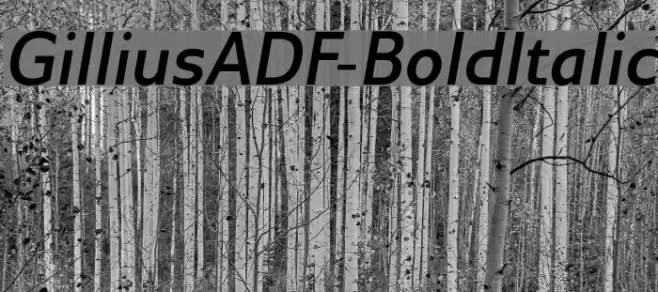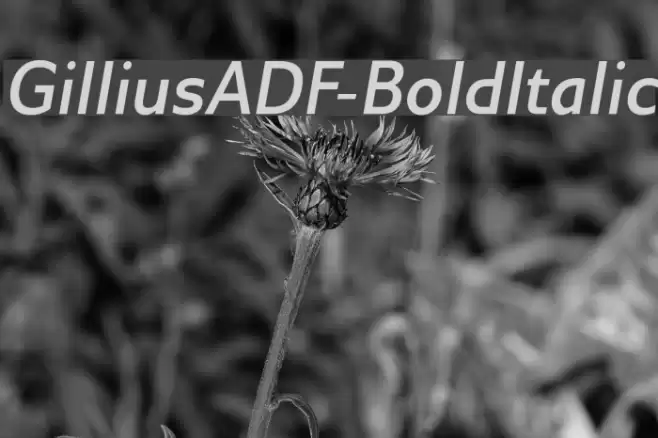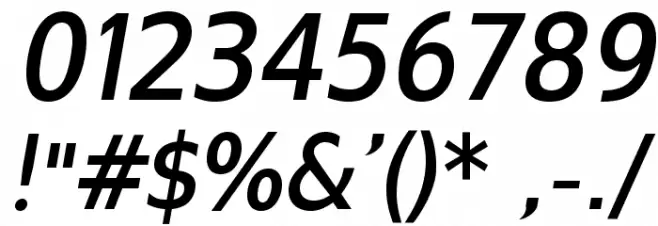
GilliusADF-BoldItalic Font
GilliusADF-BoldItalic Description
This font exhibits a modern and sleek design with a bold and italicized style. The characters are well-defined with a slight slant, giving it a dynamic and forward-moving appearance. The uppercase letters are tall and commanding, while the lowercase letters maintain a consistent flow. The numerals are clear and easily distinguishable, making them suitable for various applications. Special characters are included, enhancing its versatility. The overall look is clean and professional, suitable for both digital and print media.
A bold, italicized font with a modern and sleek design from Uncategorized fonts.
- Proposed Projects: Ideal for branding, advertising, headlines, and digital media where a modern and bold statement is needed.
- Use Case: Headlines, Logos, Branding